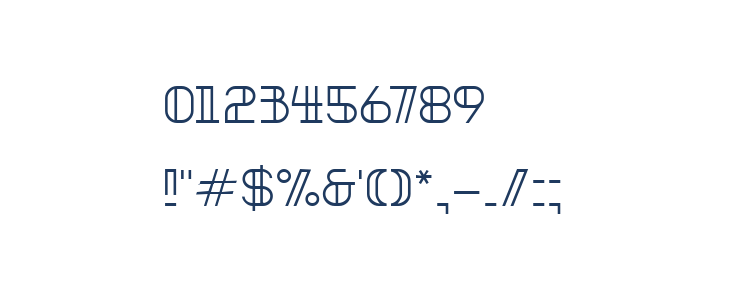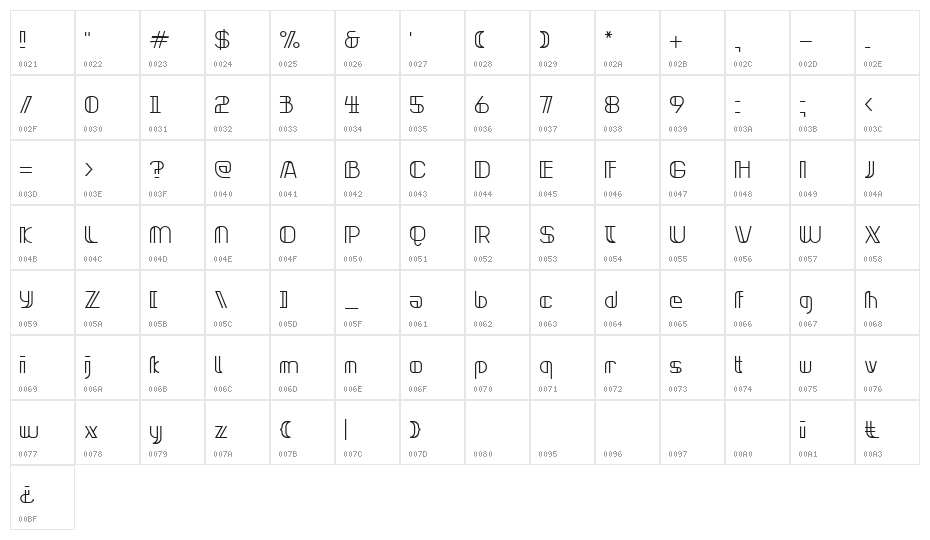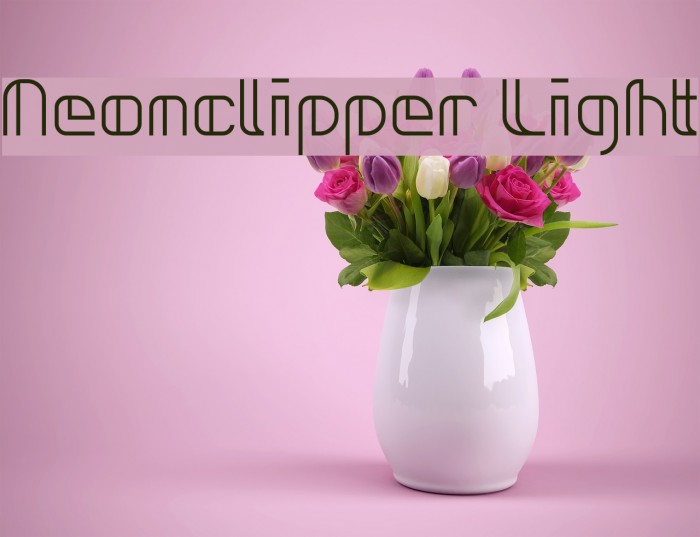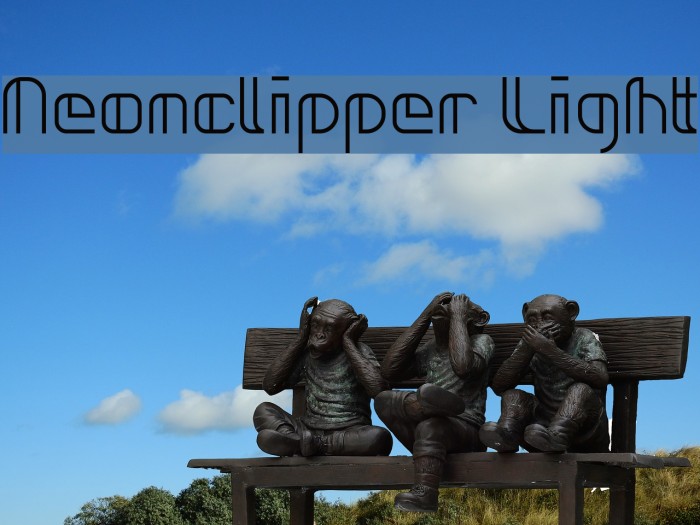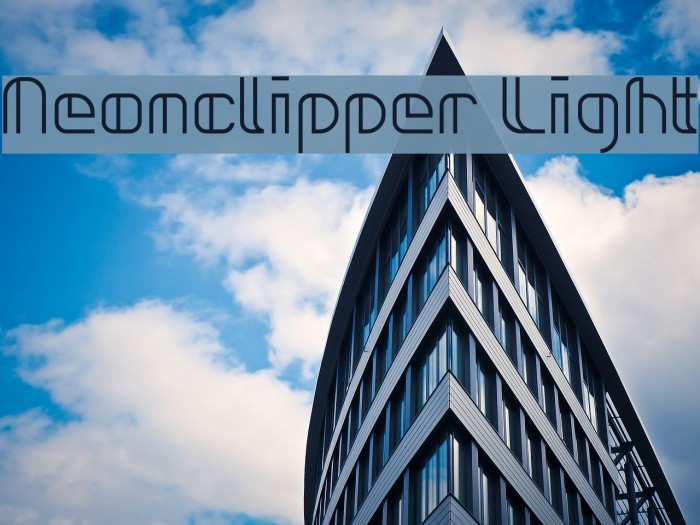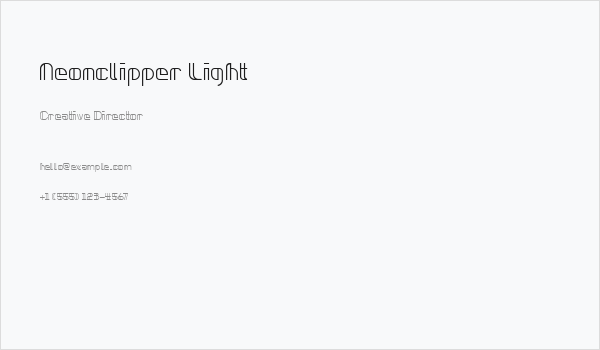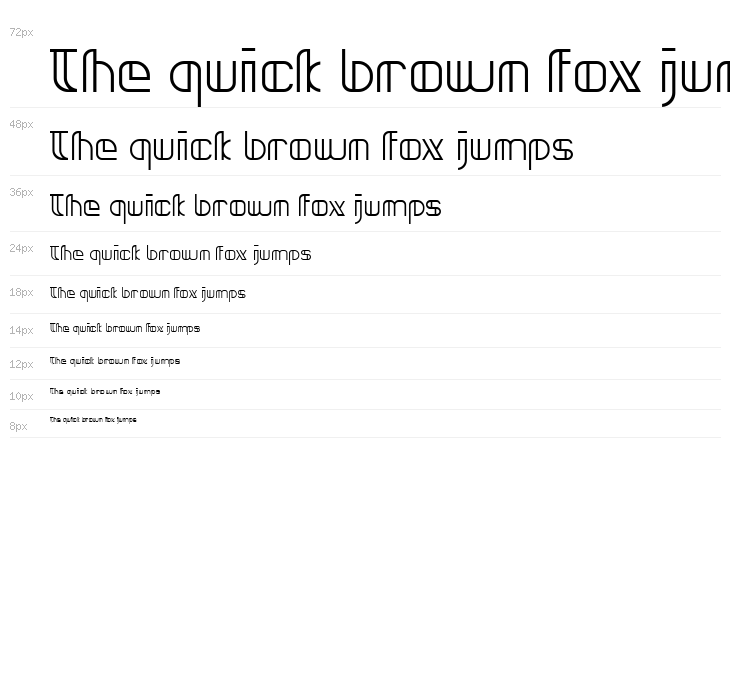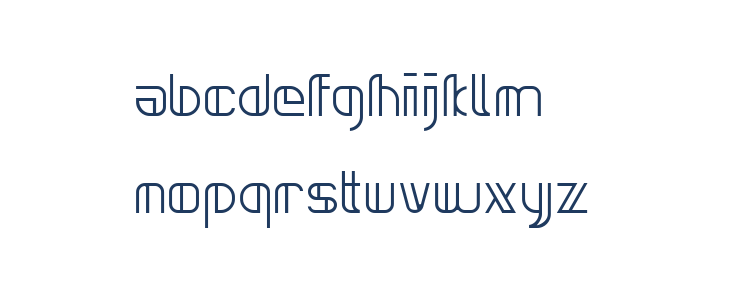
Neonclipper Light Font
Neonclipper Light Description
This font features a sleek, modern design with a geometric and minimalist aesthetic. The characters are constructed with clean, straight lines and subtle curves, giving it a futuristic appearance. The uppercase letters are uniform in height, while the lowercase letters maintain a consistent baseline, enhancing readability. The numerals are distinct and align well with the overall style, making them suitable for digital displays. Special characters are crafted with the same precision, ensuring a cohesive look across all glyphs. The font's light weight contributes to its airy and open feel, making it ideal for contemporary design projects.
| Use Case | Headlines, Digital displays, Branding |
| Proposed Projects | Ideal for tech branding, digital interfaces, modern advertising, and minimalist graphic design projects. |